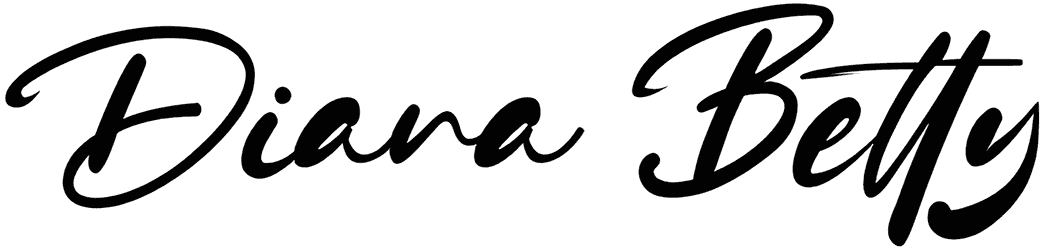
Diana Betty Font
Hey, see what we offered here: Diana Betty, one of the most beautiful yet leading handwrittne fonts ever made. This eye-catching and artistic tone is designed to highlight many invitations, headers, cards, cosmetic packs, and so on. This artwork empowers you to turn your project into a possible layout with just one click.
Be careful that it doesn’t include numbers. Try out the lavish, innovative letters of this calligraphy font to symbolize art and make a memorable experience.